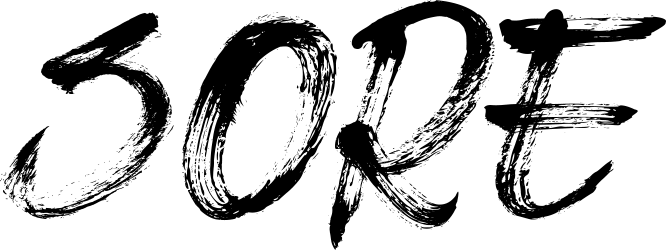
Sore Font
It’s time to pick a suitable font for your text designs and make an impressive outcome. This brush font with 2 distinct versions can be awesome for movie posters, cards, books, and any layout you consider.
Don’t delay and try Sore right now. As you can see the letters sound dried up and that makes it even more catchy. Note that this one doesn’t include small letters.